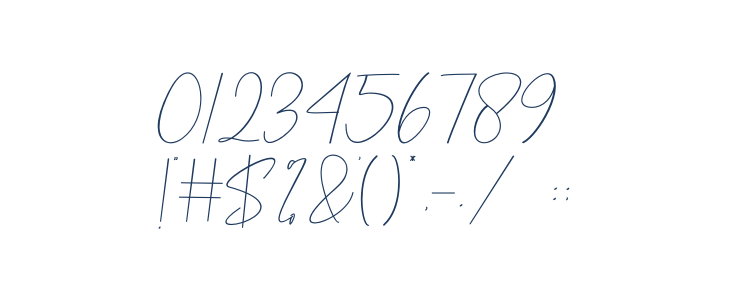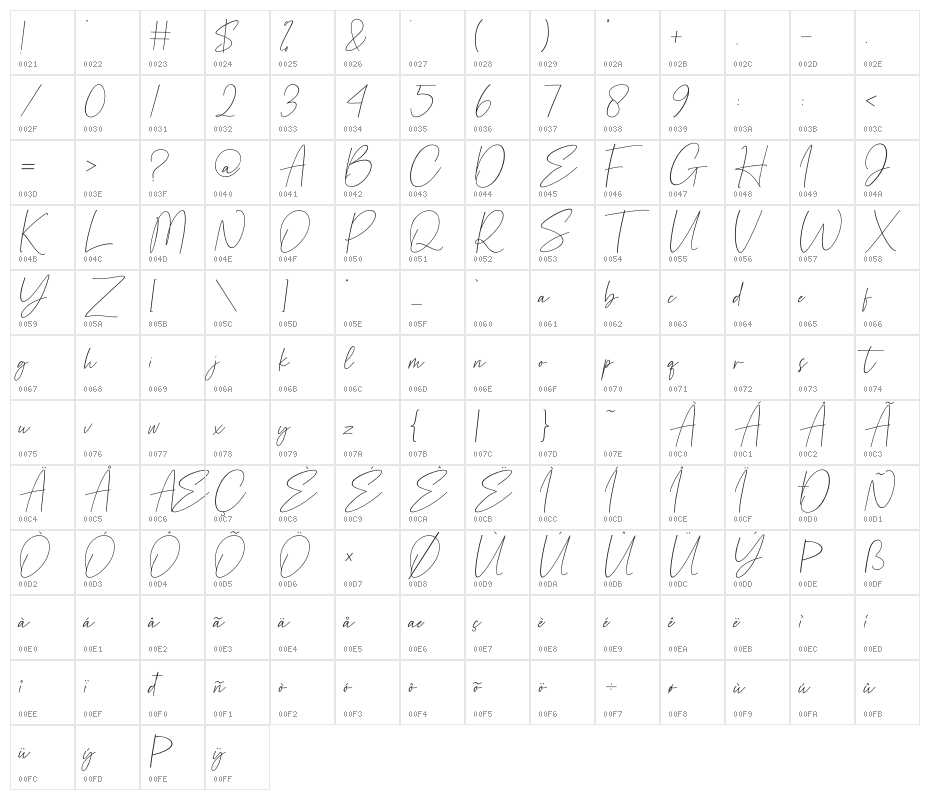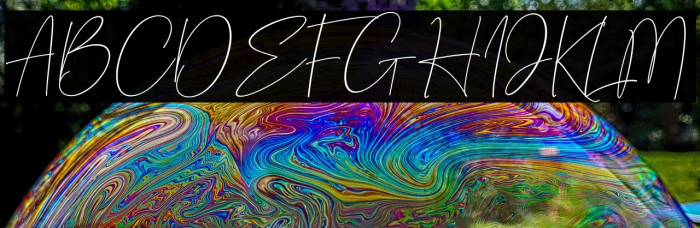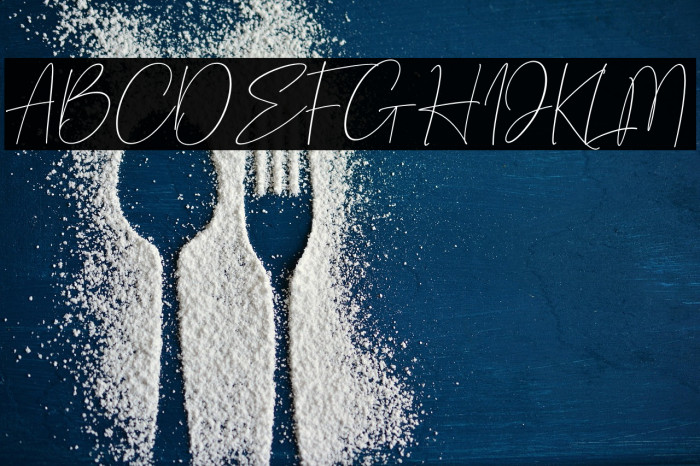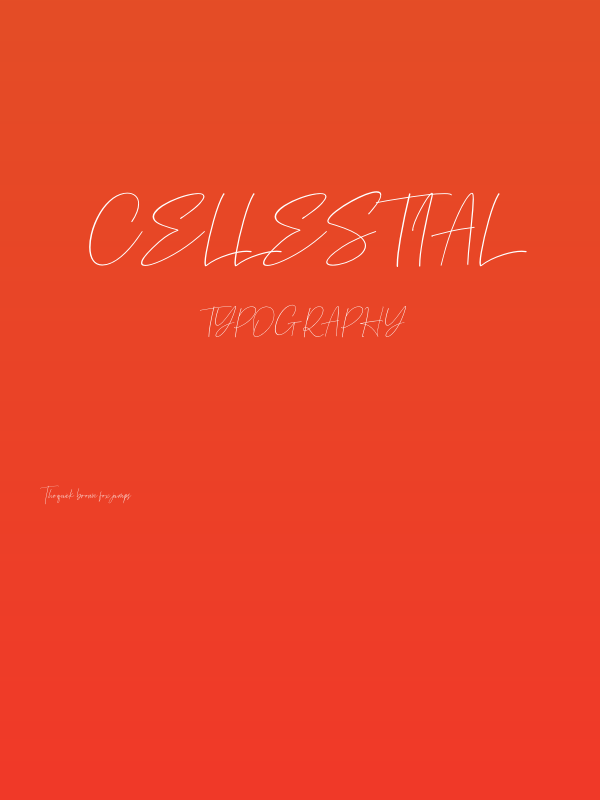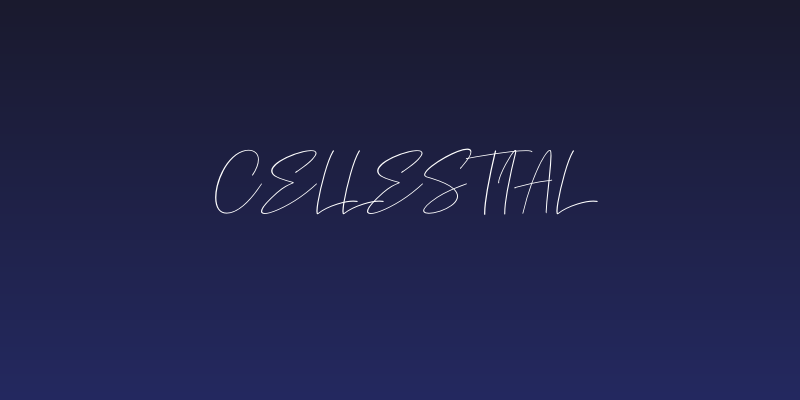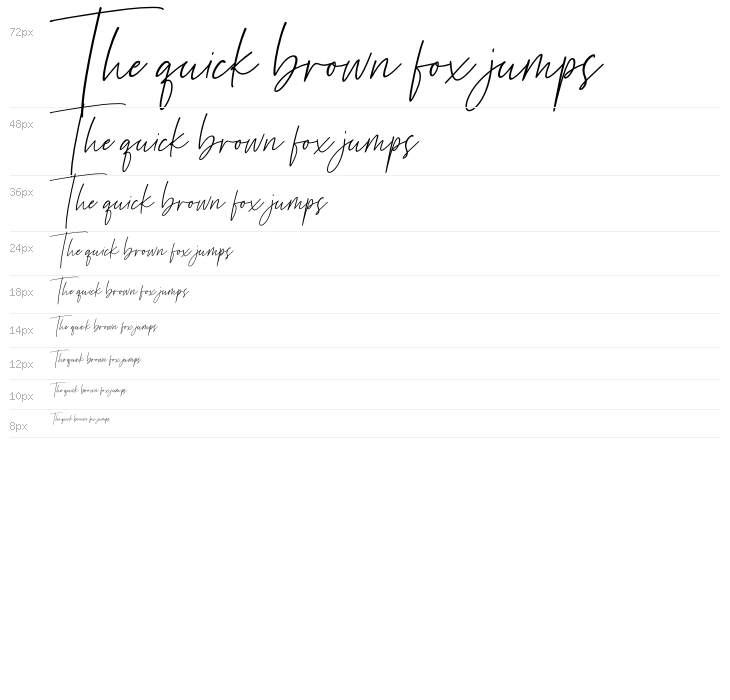
Cellestial Font
Cellestial Description
This font features an elegant, flowing script style that mimics the fluidity of natural handwriting. The uppercase letters are tall and slender, with a slight slant that adds a dynamic feel. Lowercase letters maintain a consistent style, with smooth curves and delicate lines. The numerals are similarly styled, offering a cohesive look across all characters. Special characters are thoughtfully designed to match the overall aesthetic, making this font versatile for various design needs. The thin strokes and graceful curves make it ideal for projects that require a touch of sophistication and elegance.
Overall StyleElegant
Use CaseLogos, Invitations, Greeting Cards
Proposed ProjectsIdeal for wedding invitations, greeting cards, personal branding, and elegant logos.